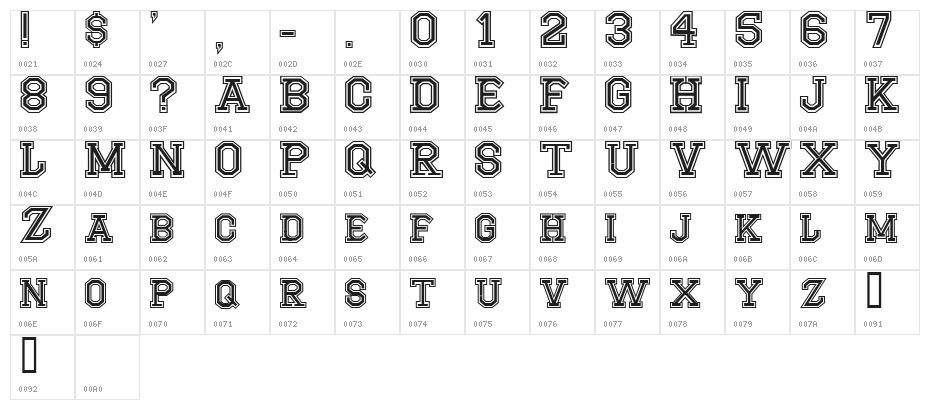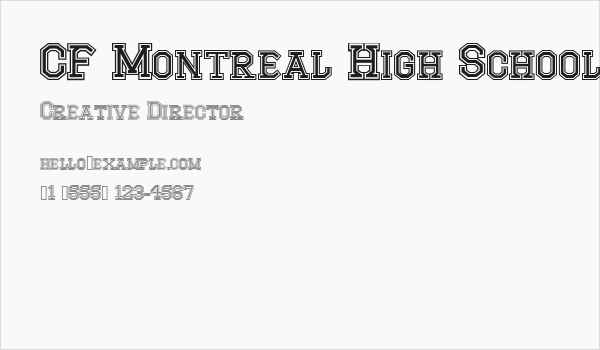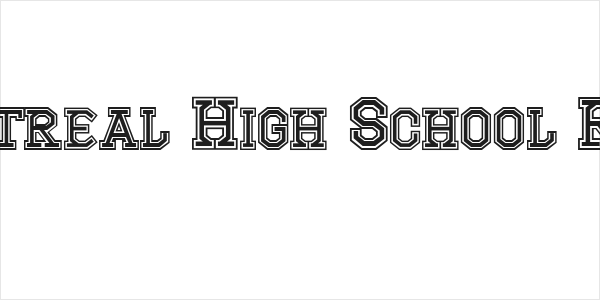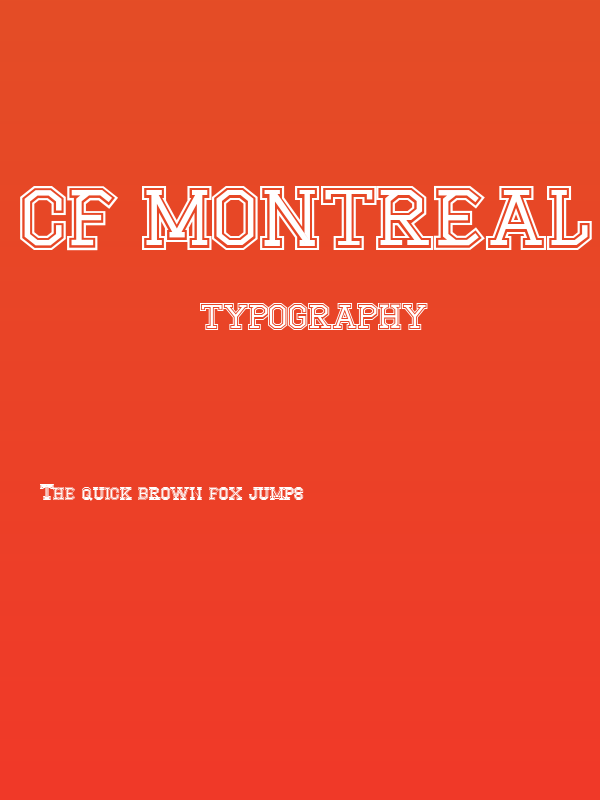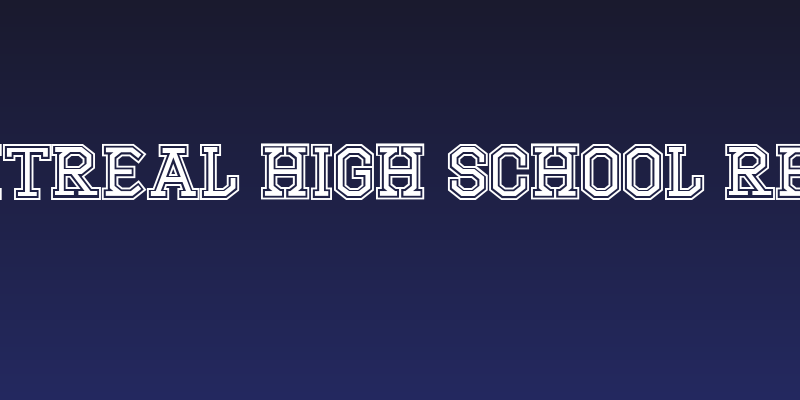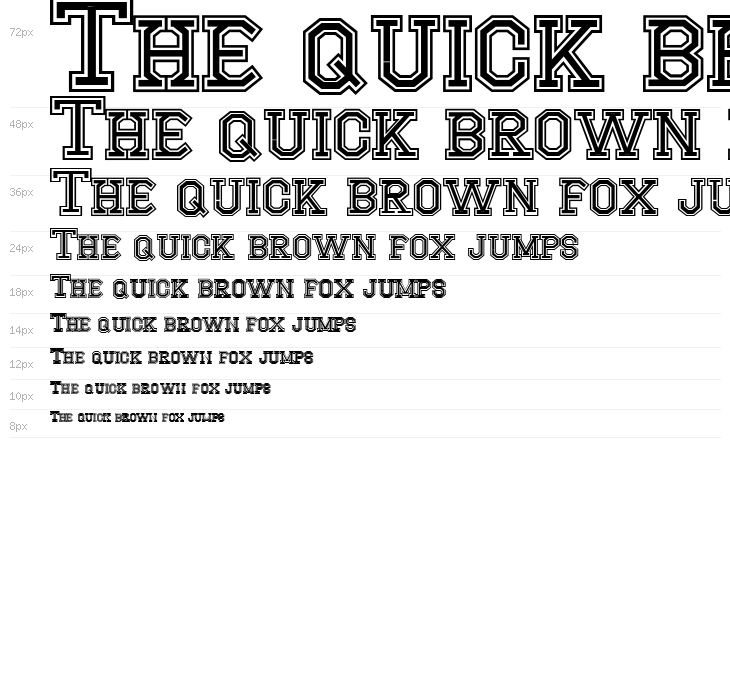
CF Montreal High School Regular Font
CF Montreal High School Regular Description
This font features a bold, outlined style with a strong geometric structure, reminiscent of classic varsity or collegiate lettering. The characters are uppercase and numerals, each with a double-line border that adds depth and emphasis. The design is clean and structured, making it ideal for creating a sense of tradition and strength. The font's boldness and clarity ensure it stands out, making it suitable for attention-grabbing headlines or titles. The uniformity in character height and width contributes to a cohesive and balanced appearance.
| Proposed Projects | Ideal for sports team branding, school event posters, and retro-themed designs. |